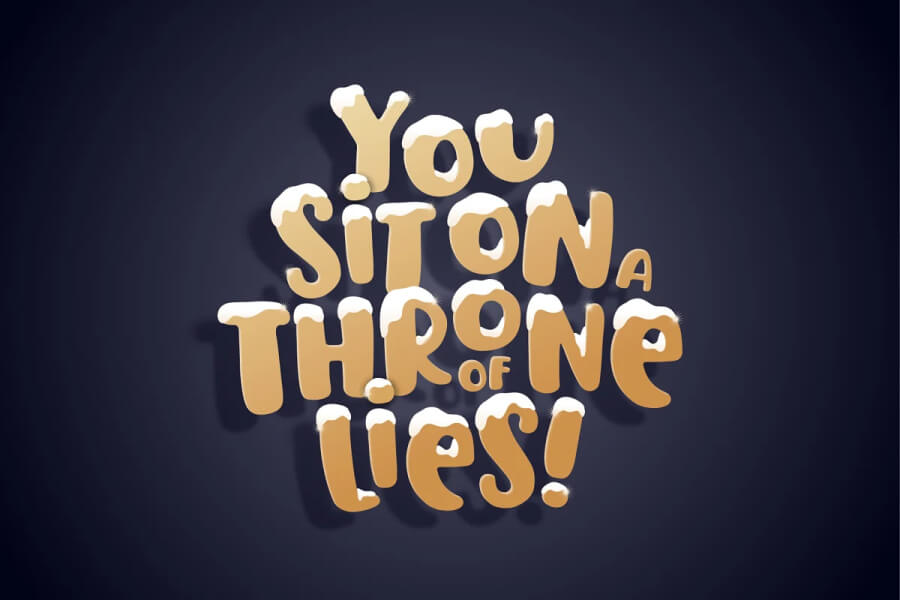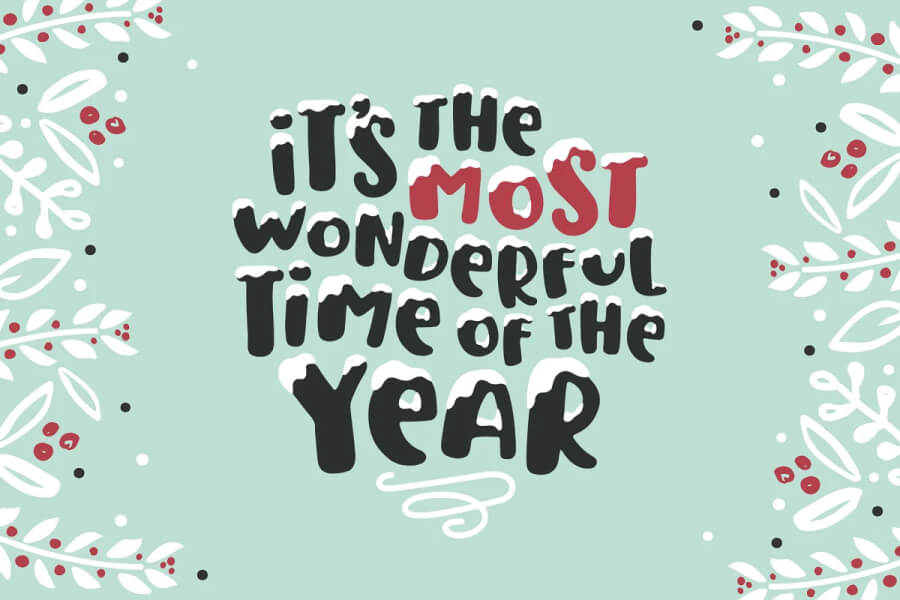
Blanket Of Snow Font Free . blanket of snow is a wide, bold font packed with personality. It can be used alone, or with the overlay version. Every font is free to download! It can be used alone, or with the overlay version placed. blanket of snow is a wide, bold font packed with personality. blanket of snow font is a bold and wide display typeface that is packed with uniqueness and personality. A great choice for highlighting your design elements. Click to find the best 197 free fonts in the snow style. looking for snow fonts? blanket of snow is a wide, bold font packed with personality. blanket of snow font free download. experience the beauty of winter with our collection of free snow fonts.
It can be used alone, or with the overlay version placed. Every font is free to download! blanket of snow font free download. It can be used alone, or with the overlay version. blanket of snow is a wide, bold font packed with personality. blanket of snow font is a bold and wide display typeface that is packed with uniqueness and personality. blanket of snow is a wide, bold font packed with personality. looking for snow fonts? A great choice for highlighting your design elements. blanket of snow is a wide, bold font packed with personality.
Blanket Of Snow Font Free looking for snow fonts? Click to find the best 197 free fonts in the snow style. blanket of snow is a wide, bold font packed with personality. looking for snow fonts? blanket of snow is a wide, bold font packed with personality. Every font is free to download! A great choice for highlighting your design elements. experience the beauty of winter with our collection of free snow fonts. blanket of snow is a wide, bold font packed with personality. blanket of snow font is a bold and wide display typeface that is packed with uniqueness and personality. It can be used alone, or with the overlay version placed. It can be used alone, or with the overlay version. blanket of snow font free download.
Blanket Of Snow Font Download Fonts for Free Blanket Of Snow Font Free blanket of snow is a wide, bold font packed with personality. blanket of snow font is a bold and wide display typeface that is packed with uniqueness and personality. blanket of snow is a wide, bold font packed with personality. It can be used alone, or with the overlay version placed. experience the beauty of winter. Blanket Of Snow Font Free.
15 Magical Snow Fonts To Help You Create the Perfect Winter Wonderland Blanket Of Snow Font Free blanket of snow font is a bold and wide display typeface that is packed with uniqueness and personality. blanket of snow font free download. looking for snow fonts? Every font is free to download! blanket of snow is a wide, bold font packed with personality. blanket of snow is a wide, bold font packed with. Blanket Of Snow Font Free.
40+ Best Snow Font (FREE / Premium) 2024 Hyperpix Blanket Of Snow Font Free experience the beauty of winter with our collection of free snow fonts. blanket of snow font free download. looking for snow fonts? blanket of snow is a wide, bold font packed with personality. It can be used alone, or with the overlay version. Every font is free to download! blanket of snow is a wide,. Blanket Of Snow Font Free.
Snowcovered display font (131159) Blanket Of Snow Font Free blanket of snow is a wide, bold font packed with personality. It can be used alone, or with the overlay version placed. Every font is free to download! It can be used alone, or with the overlay version. blanket of snow is a wide, bold font packed with personality. A great choice for highlighting your design elements. . Blanket Of Snow Font Free.
Snow Font SVG, Winter Alphabet, Christmas Svg, Winter Letters, Snow Mo Blanket Of Snow Font Free blanket of snow is a wide, bold font packed with personality. looking for snow fonts? blanket of snow font is a bold and wide display typeface that is packed with uniqueness and personality. A great choice for highlighting your design elements. Click to find the best 197 free fonts in the snow style. Every font is free. Blanket Of Snow Font Free.
Blue Snow Scene Font Snowflakes Alphabet Snowy Christmas Etsy UK Blanket Of Snow Font Free experience the beauty of winter with our collection of free snow fonts. It can be used alone, or with the overlay version. Every font is free to download! Click to find the best 197 free fonts in the snow style. blanket of snow font is a bold and wide display typeface that is packed with uniqueness and personality.. Blanket Of Snow Font Free.
27 Winter Fonts (Snow, Frost, Ice, Fonts) Bittbox Blanket Of Snow Font Free It can be used alone, or with the overlay version. blanket of snow font free download. blanket of snow is a wide, bold font packed with personality. Every font is free to download! Click to find the best 197 free fonts in the snow style. blanket of snow font is a bold and wide display typeface that. Blanket Of Snow Font Free.
15 Magical Snow Fonts To Help You Create the Perfect Winter Wonderland Blanket Of Snow Font Free blanket of snow is a wide, bold font packed with personality. blanket of snow font free download. Click to find the best 197 free fonts in the snow style. blanket of snow is a wide, bold font packed with personality. A great choice for highlighting your design elements. blanket of snow is a wide, bold font. Blanket Of Snow Font Free.
Blanket Of Snow Font Design Cuts Blanket Of Snow Font Free Every font is free to download! Click to find the best 197 free fonts in the snow style. experience the beauty of winter with our collection of free snow fonts. looking for snow fonts? blanket of snow font free download. A great choice for highlighting your design elements. blanket of snow is a wide, bold font. Blanket Of Snow Font Free.
Snow winter font Royalty Free Vector Image VectorStock Blanket Of Snow Font Free blanket of snow is a wide, bold font packed with personality. Click to find the best 197 free fonts in the snow style. looking for snow fonts? experience the beauty of winter with our collection of free snow fonts. blanket of snow font is a bold and wide display typeface that is packed with uniqueness and. Blanket Of Snow Font Free.